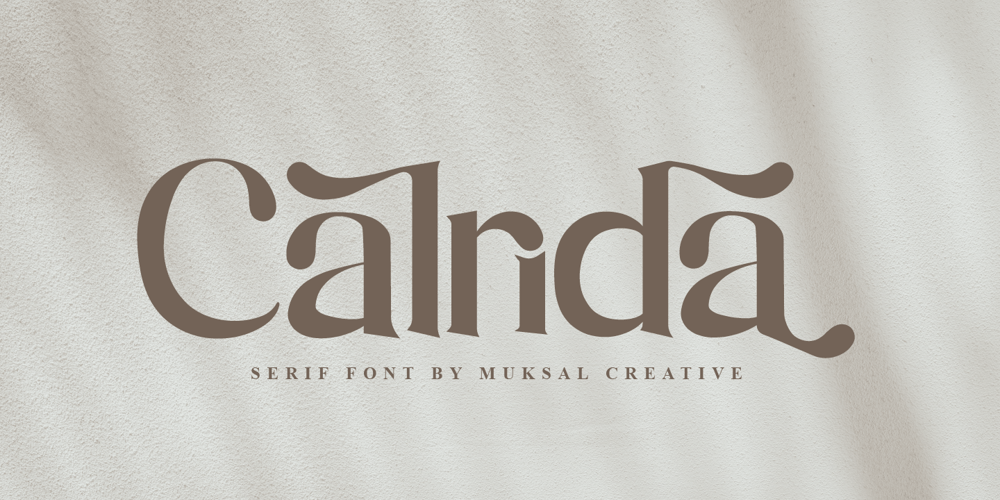
Calrida Font Family was designed by Muksalmina and published by Muksal Creatives. Calrida contains 1 styles and family package options. Calrida is a modern high-class display serif font typeface. It includes all basic glyphs with international characters. This font will pair beautifully with a script, signature or handwriting style font. Calrida is perfect for headlines, titles, magazine headings, logos, presentations, posters, name cards, web layouts, invitations, books, branding, and more.Calrida Features: Uppercase Multilingual Letters Lowercase Multilingual Letters Numbers & Punctuation Ligatures Stylistic Alternates